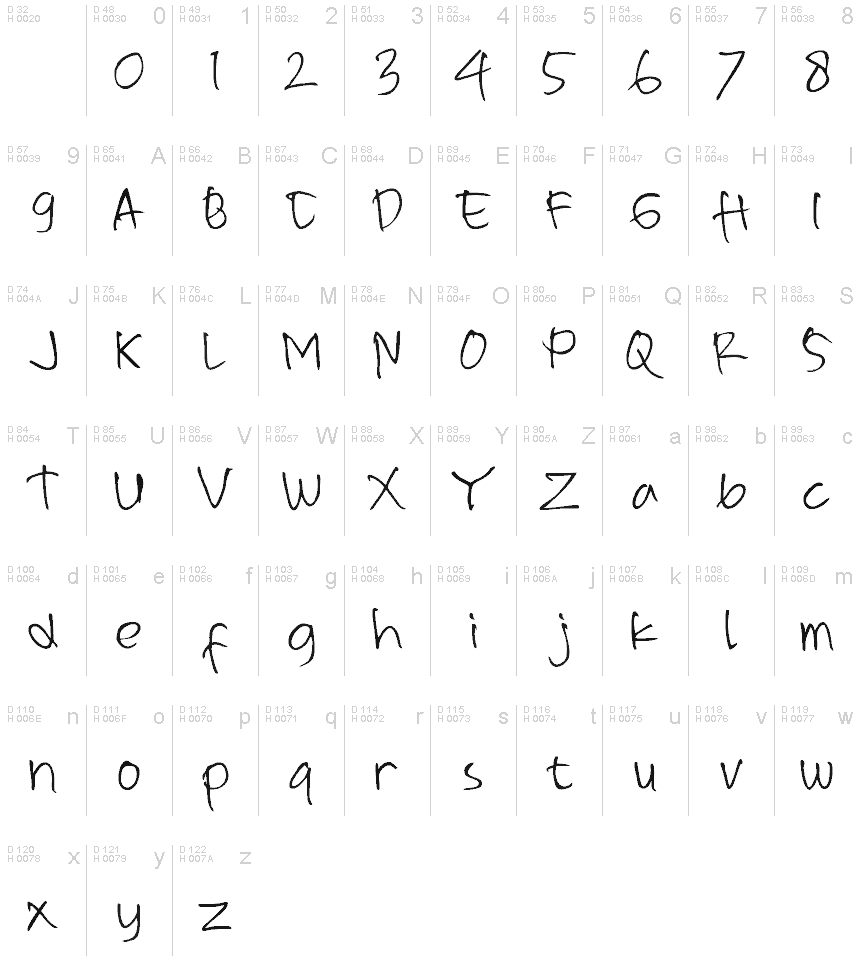
pipih
Pipih, a captivating handwritten font crafted by designer Cikep, effortlessly blends whimsy and elegance. Its fluid, organic strokes evoke a sense of artisanal charm, inviting the viewer to experience the font's unique personality. Pipih's light, airy demeanor lends itself seamlessly to a wide range of applications, from playful branding and packaging designs to elegant stationery and editorial layouts. The font's distinctive character and versatility make it a compelling choice for creatives seeking to infuse their projects with a touch of handcrafted personality and charm.
Whether used for headlines, body text, or accent elements, Pipih's expressive and inviting form is sure to captivate audiences and elevate the visual impact of any design.